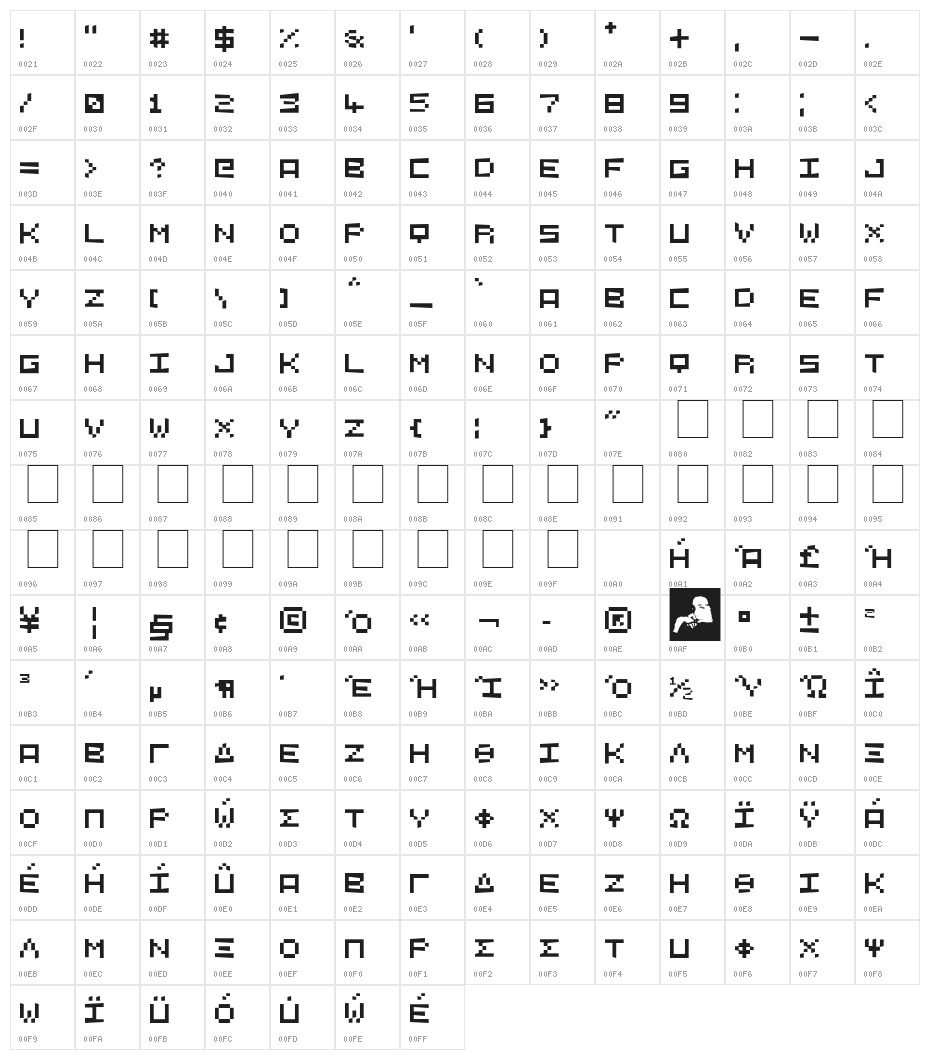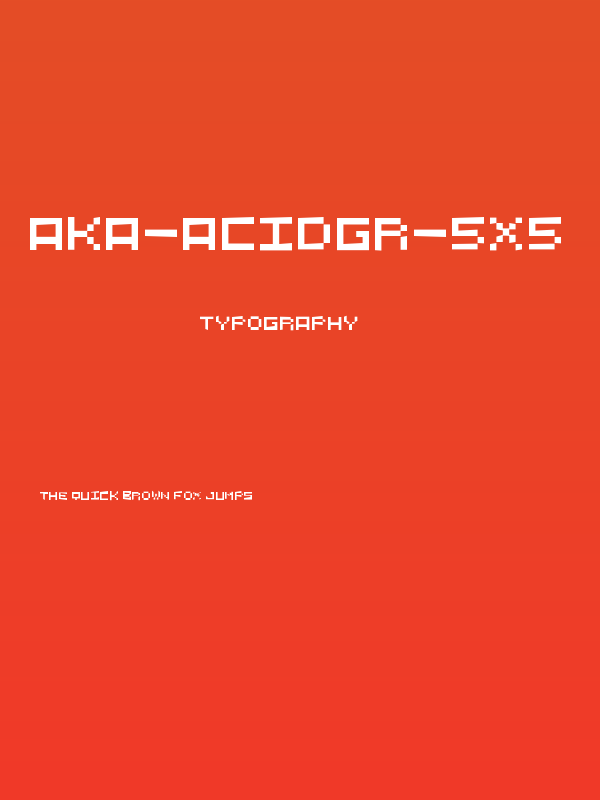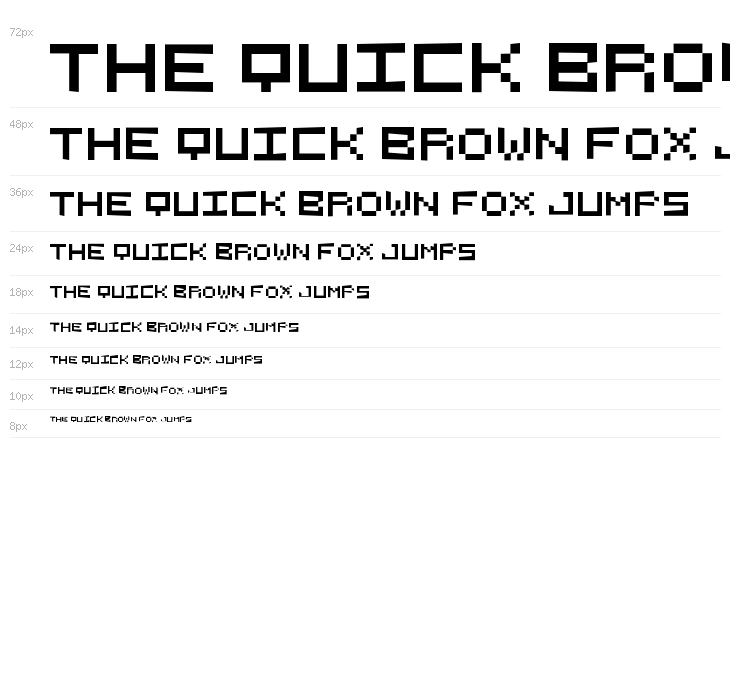
Aka-AcidGR-5X5 Font
Aka-AcidGR-5X5 Description
This font features a pixelated, blocky design reminiscent of early digital displays and retro video games. Each character is constructed with a grid-like structure, giving it a distinctly digital and geometric appearance. The uppercase and lowercase letters maintain a consistent height, contributing to a uniform look across the text. The numerals and special characters follow the same pixelated style, ensuring cohesion throughout. This font's simplicity and clarity make it highly legible, even at smaller sizes, while its unique style adds a nostalgic touch to any design.
| Overall Style | Retro, Digital |
| Use Case | Headlines, Logos, Digital displays |
| Proposed Projects | Ideal for retro video game designs, digital art projects, tech-themed posters, and nostalgic branding. |